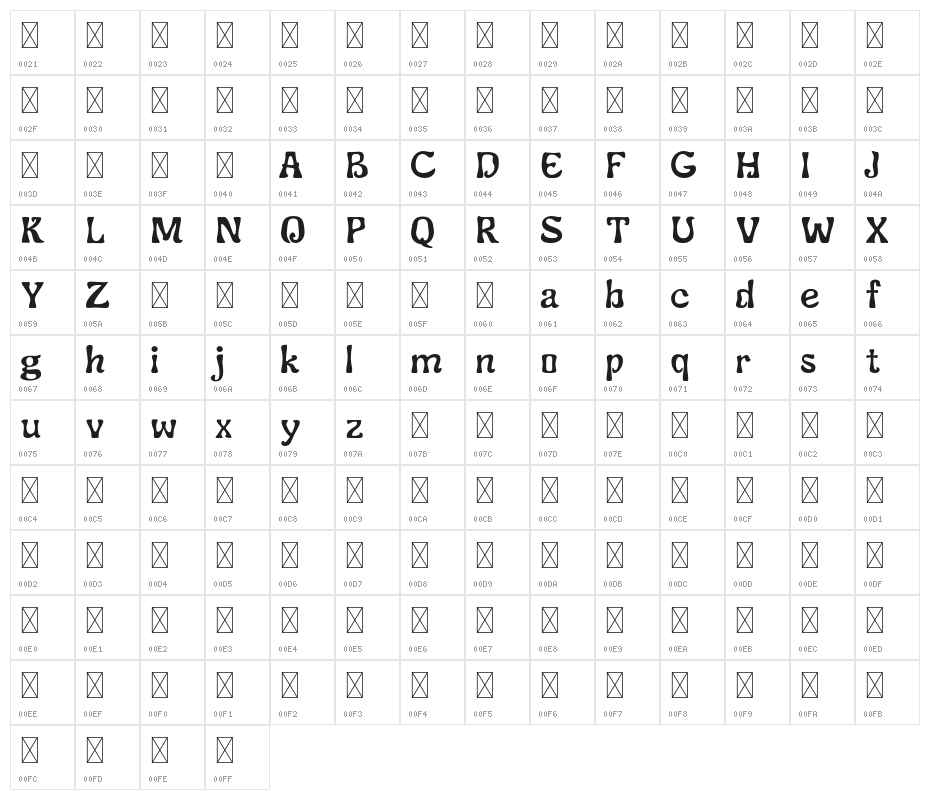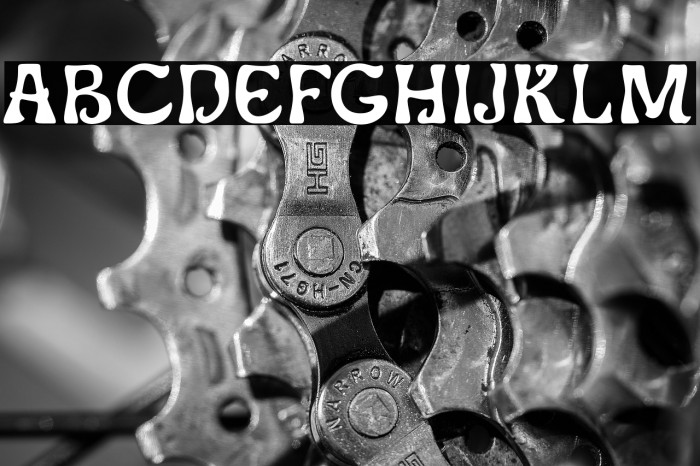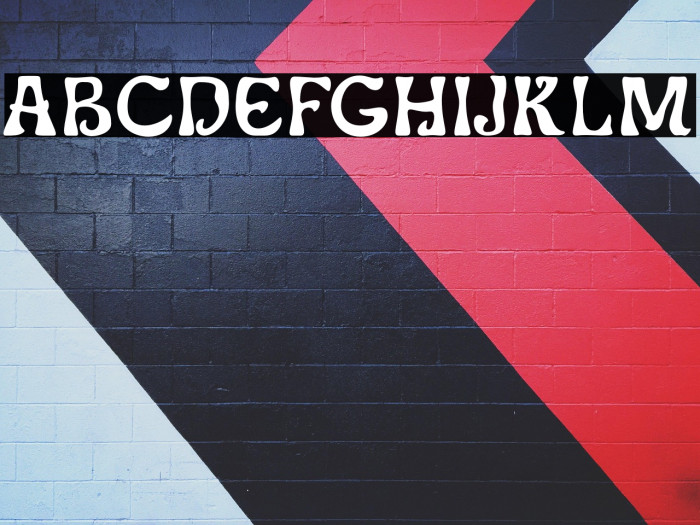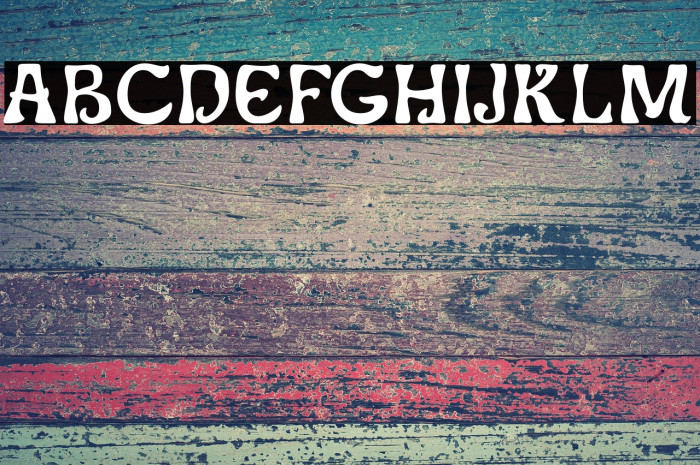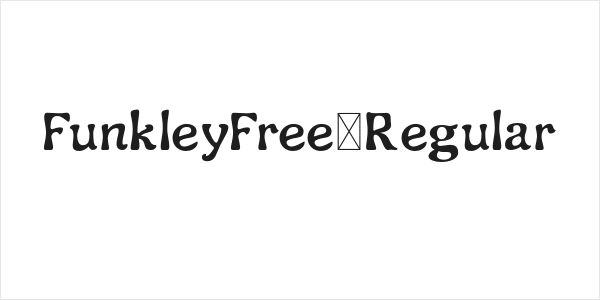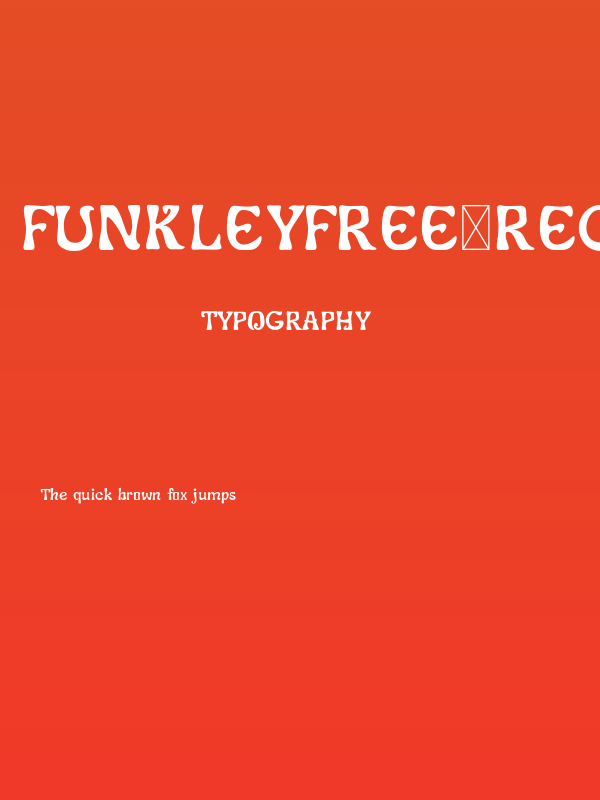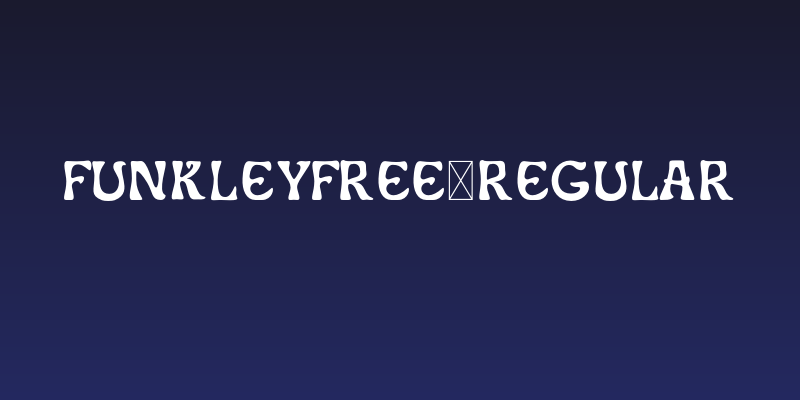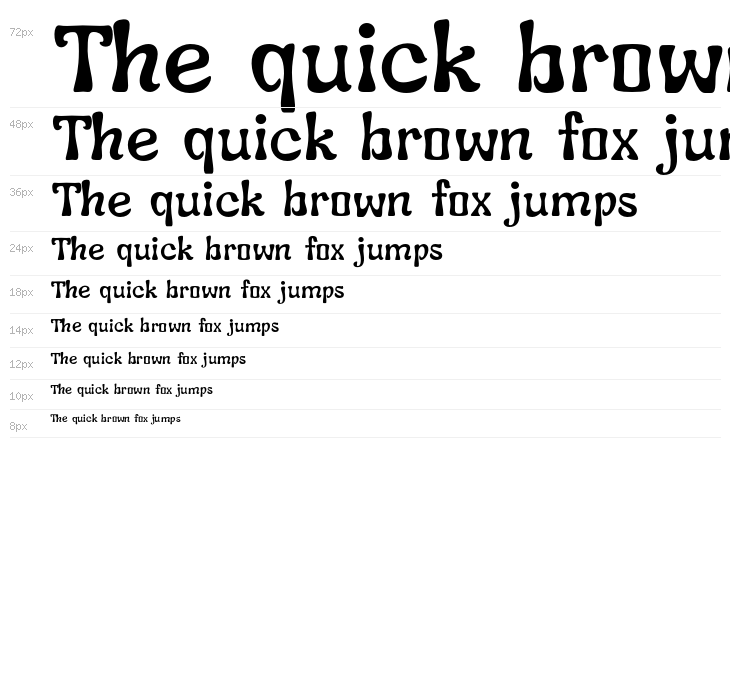
FunkleyFree-Regular Font
FunkleyFree-Regular Description
This font features a playful and whimsical design with a hand-drawn aesthetic. The characters have a unique, slightly irregular shape, giving them a lively and dynamic appearance. The strokes are bold and rounded, contributing to a friendly and approachable feel. The uppercase and lowercase letters maintain a consistent style, with some characters exhibiting exaggerated curves and angles. The overall look is reminiscent of a casual, artistic script, making it suitable for creative and informal applications. The font's distinct personality is enhanced by its bold weight and medium contrast, ensuring readability while maintaining its artistic flair.
| Overall Style | Whimsical, Artistic, Playful |
| Use Case | Logos, Posters, Invitations |
| Proposed Projects | Ideal for children's books, creative posters, playful branding, and artistic invitations. |